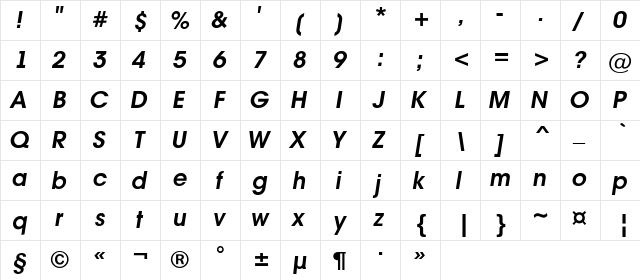
a_AvanteInt BoldItalic
Design Context for a_AvanteInt Typeface
a_AvanteInt offers clean, dependable letterforms without strong stylistic allegiance, making it a practical choice for designers who need flexibility. The slanted form adds forward momentum and visual energy. The heavy weight commands attention and anchors typographic hierarchies.
Pro Tip: Use a_AvanteInt for emphasis, pull quotes, and subheadings where its slanted energy can add rhythm to the layout.